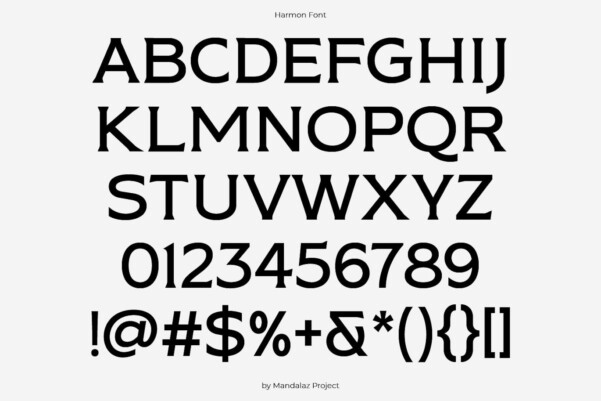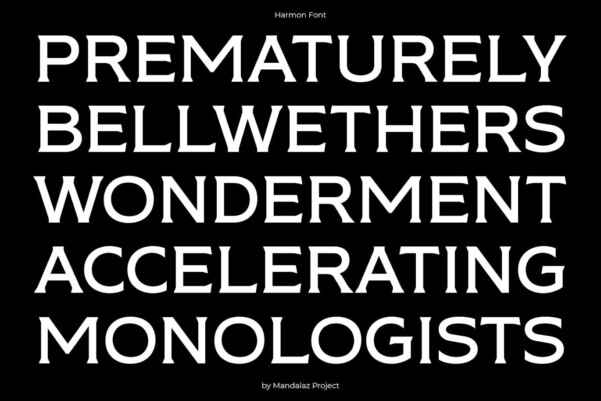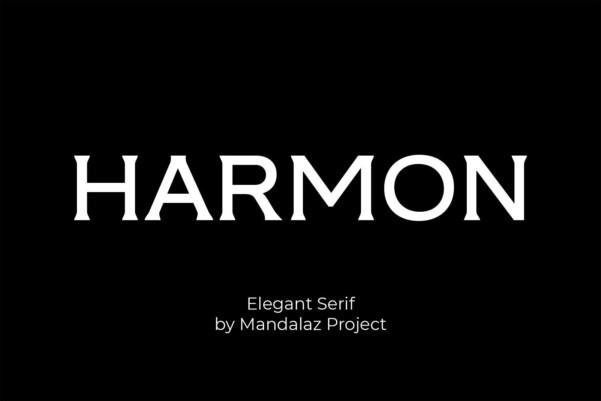
Harmon Font
Harmon Font, a font that seamlessly blends elegance with masculinity. With its bold strokes and refined curves, Harmon exudes sophistication and strength, making it ideal for projects requiring authority and poise. Whether it’s gracing the pages of a high-end magazine or commanding attention in a corporate presentation, Harmon leaves an indelible mark with its dignified demeanor. From luxury branding to editorial layouts, Harmon effortlessly elevates any design, infusing it with a sense of refinement and character. Embrace the allure of Harmon and let its unique blend of elegance and masculinity captivate your audience with every glance. Perfect for merch, poster, headline, cover, social media post, title, ads, etc.